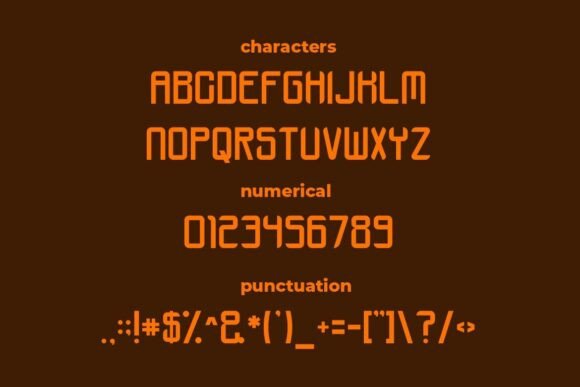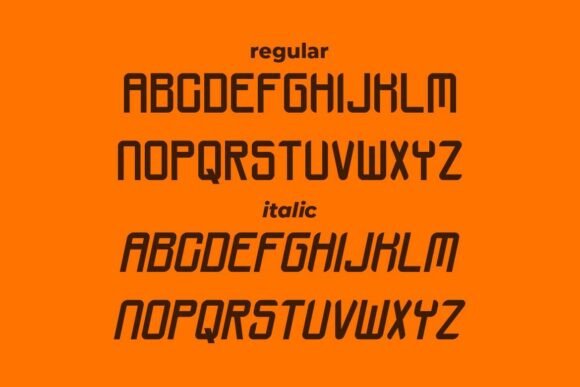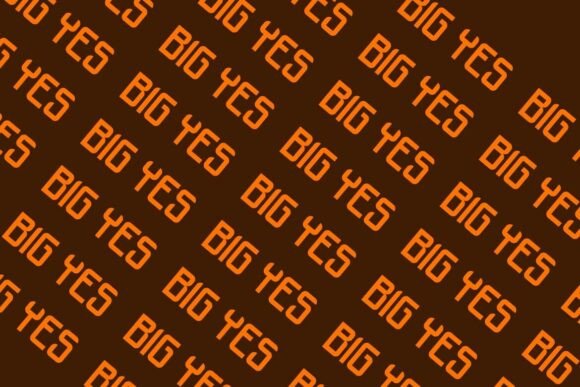
Introducing Condera Font: The Perfect Blend of Style and Versatility
In the world of typography, a good font can make all the difference in the success of a design project. Whether you’re a graphic designer, a crafty DIY enthusiast, or a digital content creator, finding the right font can be a daunting task. That’s where Condera Font comes in – a stylish and inventive sans serif font that blends clean structure with subtle artistic quirks.
What is Condera Font?
Condera is a modern sans serif font designed to stand out while staying versatile. Its unique blend of clean lines and artistic flair makes it perfect for a wide range of design applications, from branding and editorial layouts to packaging, fashion design, and digital content. With Condera, you can add a creative edge to your projects and take your designs to the next level.
Key Features of Condera Font
So, what sets Condera apart from other fonts? Here are some of its key features:
- Clean Structure: Condera’s sans serif design provides a clean and modern look that’s perfect for a wide range of design applications.
- Subtle Artistic Quirks: Condera’s artistic flair is evident in its subtle quirks and nuances, which add a touch of personality to your designs.
- Versatility: Condera is designed to be versatile, making it perfect for use in a variety of design applications, from branding and editorial layouts to packaging and digital content.
Use Cases for Condera Font
Condera’s versatility makes it perfect for a wide range of design applications. Here are some use cases to get you started:
- Branding: Use Condera to create a unique and memorable brand identity that stands out from the crowd.
- Editorial Layouts: Condera’s clean structure and artistic flair make it perfect for use in editorial layouts, such as magazines, newspapers, and blogs.
- Packaging: Add a creative edge to your packaging designs with Condera’s unique blend of clean lines and artistic quirks.
- Fashion Design: Condera’s stylish and modern design makes it perfect for use in fashion design, from clothing and accessories to beauty and lifestyle brands.
- Digital Content: Use Condera to add a touch of personality to your digital content, from social media graphics to website headers and more.
Why Choose Condera Font?
With so many fonts to choose from, why choose Condera? Here are just a few reasons:
- Unique Design: Condera’s unique blend of clean structure and artistic quirks makes it stand out from other fonts.
- Versatility: Condera’s versatility makes it perfect for use in a wide range of design applications.
- Easy to Read: Condera’s clean design makes it easy to read, even at small sizes.
- High-Quality: Condera is a high-quality font designed to deliver exceptional results in your designs.
In conclusion, Condera Font is a stylish and inventive sans serif font that’s perfect for designers and crafters looking to add a creative edge to their projects. With its unique blend of clean structure and artistic quirks, Condera is versatile, easy to read, and perfect for a wide range of design applications. Whether you’re a graphic designer, a crafty DIY enthusiast, or a digital content creator, Condera is a great choice for any project.